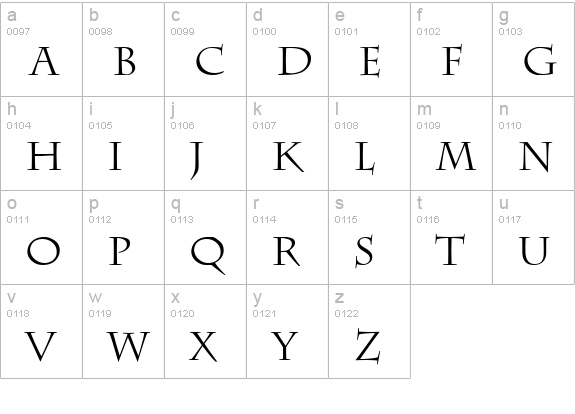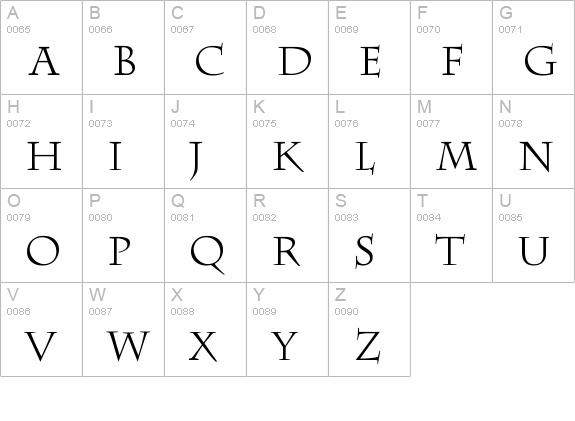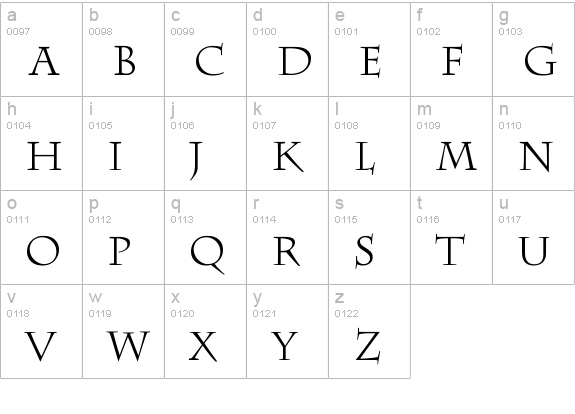
Empire Normal is the standard, neutral variant in the Empire typeface family \xE2\x80\x94 well suited to general body text, paragraphs, and standard typographic work.
Empire Normal font is a classic and elegant typeface that exudes sophistication and refinement. With its clean lines and timeless appeal, Empire Normal is perfect for a wide range of design projects, from branding to print materials. This versatile font strikes the perfect balance between modernity and tradition, making it a go-to choice for designers looking to make a statement. The best part? Empire Normal font is available for free download at FontsMarket.com, where you can easily access this stunning typeface to elevate your designs. Whether you're working on a logo, website, or any other creative project, Empire Normal font will add a touch of elegance and professionalism that will set your work apart. Download Empire Normal font today and see the difference it can make in your designs.